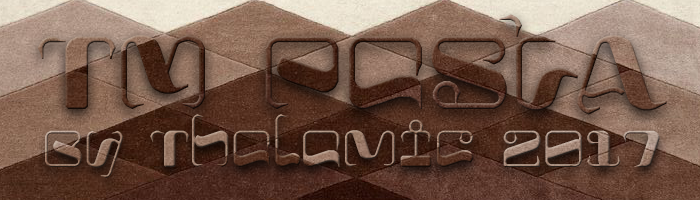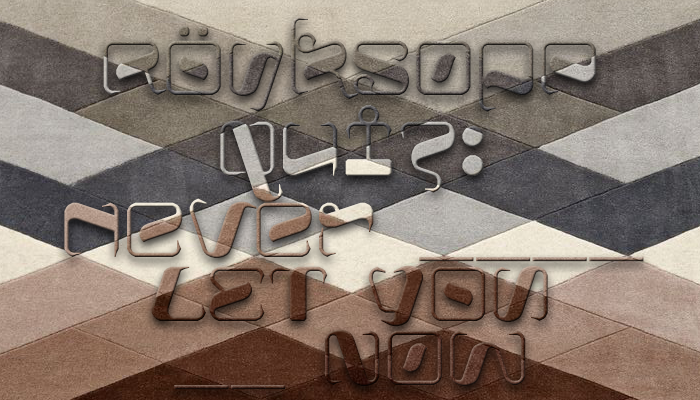
10/10 for the font, and a separate 10/10 for the unexpected Röyksopp reference in the comments - they're my favourite band of all time. Never thought I'd EVER GO to a font's comments and see such a thing, but it's so easy to imagine now :D
Congratulationson the TP for this gorgeous swinging design. It reminds me of Thai, Lao, Mongolian.The slanted vertical and horizontal lines, circles and curves are so skilfully constructed. 11/10
This is all kinds of fantastical. Lots of flamboyant characters from the domineering Q, to the dualistic b, to the swashtastic z, and the overtly shy g and y. So much personality.
Impressive font. Connection of calligraphy with a broad-edged nib pen and square shape creates a feeling of alien. Cool.
Nice and jolly face. 10/10
Wow! Beautiful font, beautiful samples.
10/10 for the font, and a separate 10/10 for the unexpected Röyksopp reference in the comments - they're my favourite band of all time. Never thought I'd EVER GO to a font's comments and see such a thing, but it's so easy to imagine now :D
Congratulationson the TP for this gorgeous swinging design. It reminds me of Thai, Lao, Mongolian.The slanted vertical and horizontal lines, circles and curves are so skilfully constructed. 11/10
Looked at the font and samples several times across several days before realizing that these aren't "real" curves. Well done, you ridiculous wizard.
This is all kinds of fantastical. Lots of flamboyant characters from the domineering Q, to the dualistic b, to the swashtastic z, and the overtly shy g and y. So much personality.
Very awesome, it reminds me of Hebrew.